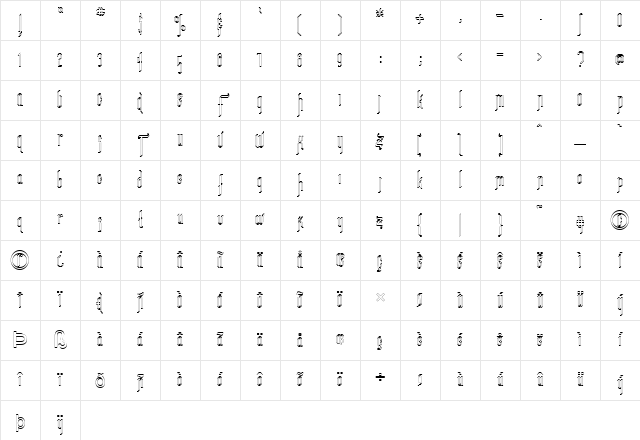
FZ JAZZY 35 HOLLOW Normal
Design Context for FZ JAZZY 35 HOLLOW
FZ JAZZY 35 HOLLOW is a composed and adaptable typeface that performs quietly and consistently across a wide range of design contexts.